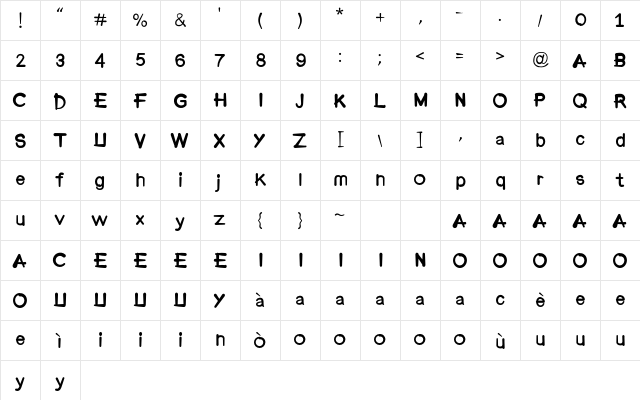
VariusFont Bold
| Designer | Patrik |
Design Context for VariusFont Typeface
VariusFont offers clean, dependable letterforms without strong stylistic allegiance, making it a practical choice for designers who need flexibility. Its bold stroke weight gives it real presence on the page.